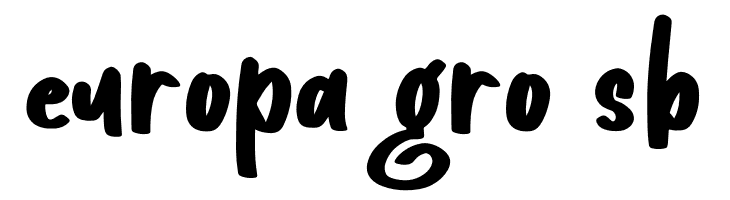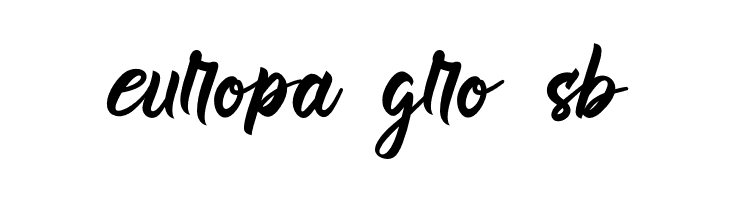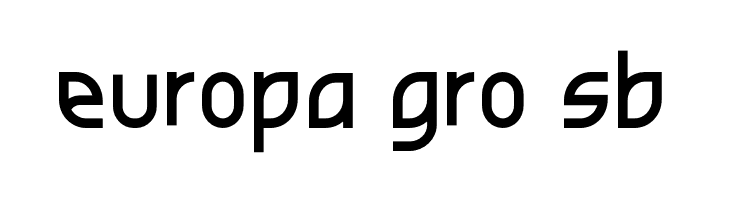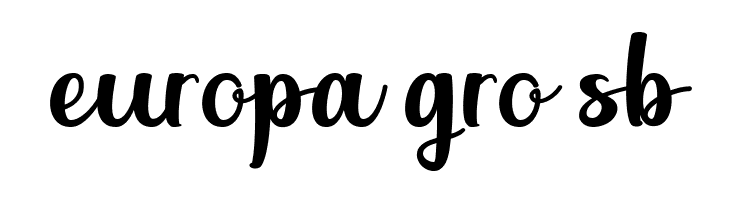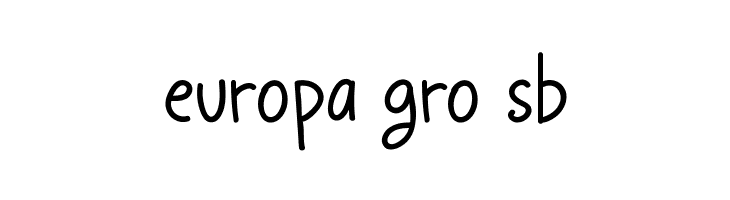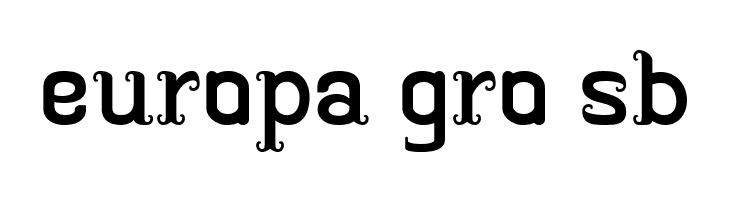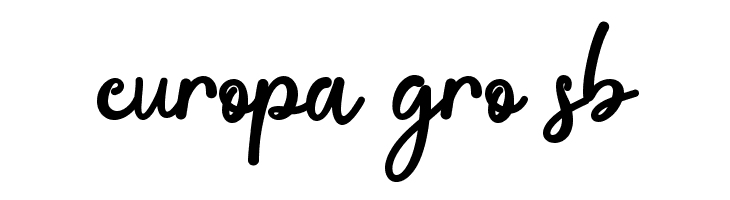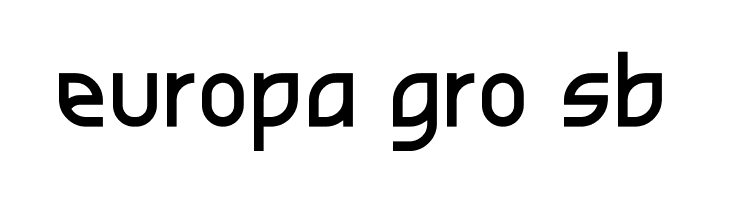
A dynamic and flowing script font with elegant curves and smooth connections.
A bold, angular typeface with a futuristic and dynamic style.
A playful, bold script font with a handwritten style.
A playful, handwritten font with smooth curves and a casual style.
A bold, decorative slab serif font with playful curls and a vintage-modern appeal.
A modern, geometric font with a futuristic and structured design.
A modern, geometric font with rounded and angular elements, perfect for contemporary designs.
A bold, dripping font perfect for horror-themed designs.
A playful and flowing script font with a handwritten style.